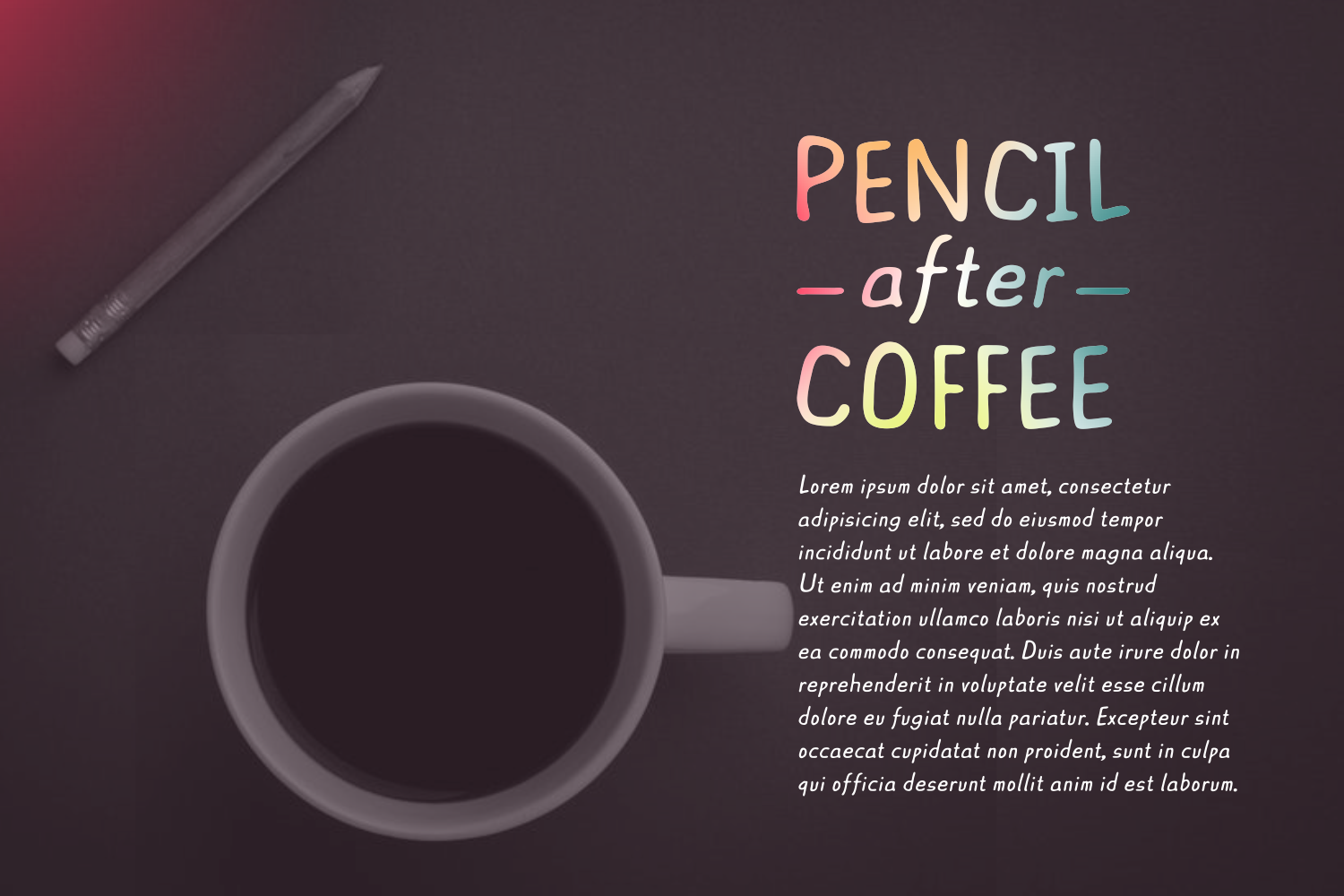
The Ascota Font: A Friendly, Handmade Companion for Your Design Projects
I’ll never forget the time I was working on a branding project for a local craft fair, and I just couldn’t find the right font to capture the playful, yet elegant vibe of the client’s handmade products. That’s when I stumbled upon the Ascota font, and it instantly became my go-to companion for the project. In this article, I’ll share my love for this lovely font, its features, and how you can make the most of it in your designs.
An Honest Review of Ascota Font
What I Love About Ascota ✨
- ✅ Legibility: Ascota is incredibly easy to read, making it perfect for both display text and body text.
- ✅ Clean Style: Its simple, sans-serif design ensures that your message is conveyed clearly without any distractions.
- ✅ Handmade Feel: Despite its simplicity, Ascota has a distinctly handmade, casual vibe that adds warmth to any design.
- ✅ Versatility: It works beautifully across various design projects, from digital graphics to print materials.
While Ascota is a wonderful font, it’s not without its limitations. For instance:
- ⚠️ Limited Formality: Given its casual nature, Ascota might not be the best choice for projects requiring a high level of formality or sophistication.
- ⚠️ Glyph Variety: While it offers a good range of characters, it might not have the extensive glyph library that some designers need for complex projects.
A Practical Guide to Using Ascota Font
- Explore OpenType features, such as stylistic alternates, to add more personality to your text.
One of the joys of using Ascota is exploring its OpenType features. Many fonts, including Ascota, offer:
- Stylistic Alternates: Swappable characters that can add variety to your text.
- Ligatures: Special character combinations that improve the flow of text.
- Glyphs: Additional characters that can enhance your design, from icons to decorative elements.
The Backstory of Ascota Font
Ascota was designed with the intention of creating a font that feels both approachable and clean. While the specific designer behind Ascota might not be widely documented, it’s clear that the goal was to craft a font that could easily be used in a variety of creative projects, from handmade crafts to professional branding.
| Font Name | Ascota Font |
| Author | Andrian Dehasta |
| Is Ascota suitable for body text? | Yes, Ascota’s legibility and clean style make it an excellent choice for body text. |
| Does Ascota support multiple languages? | It likely supports a range of languages, but check the font’s documentation for specific language support. |
Ascota is more than just a font; it’s a design companion that brings a touch of handmade warmth to your projects. Whether you’re a designer, crafter, or hobbyist, Ascota’s friendly and versatile nature makes it a valuable addition to your typography toolkit.